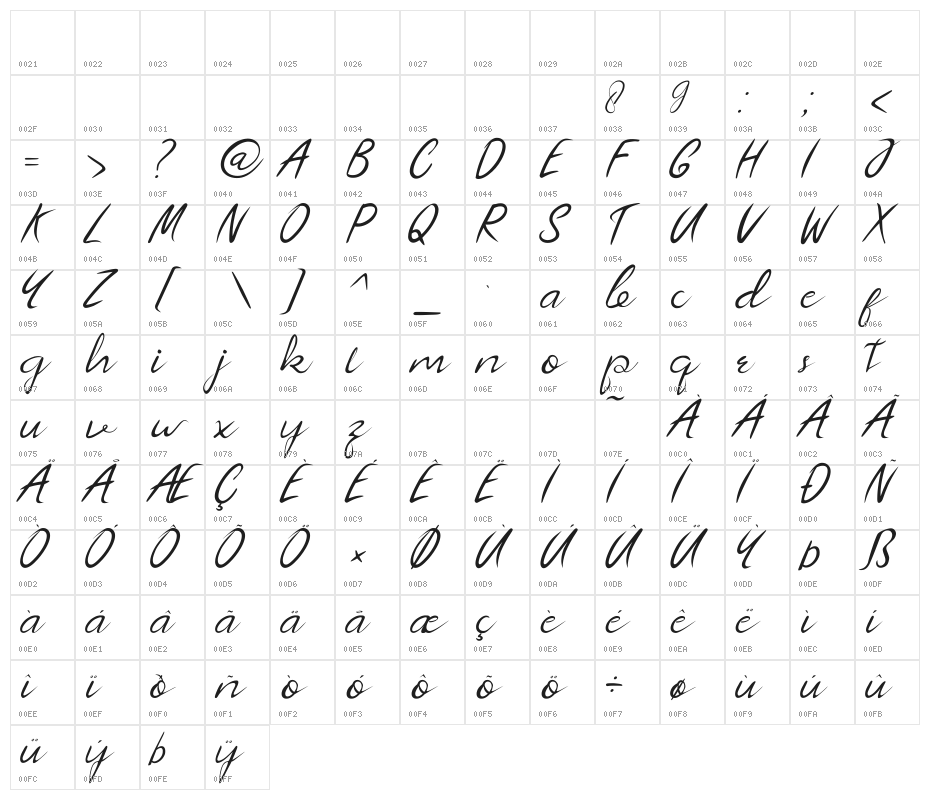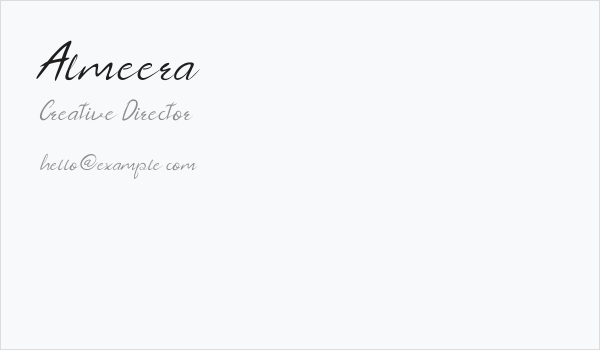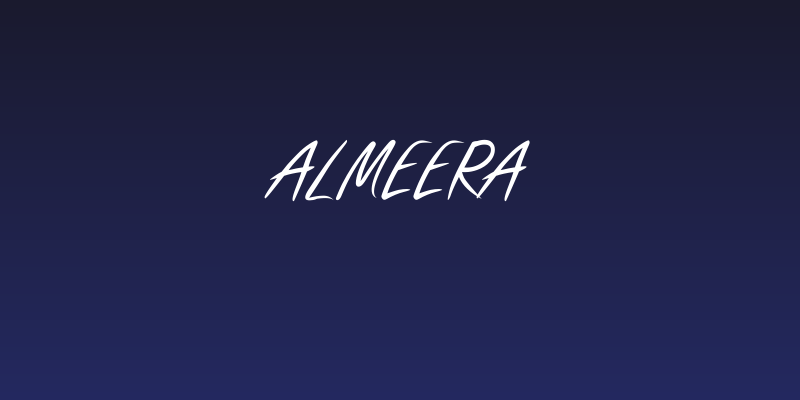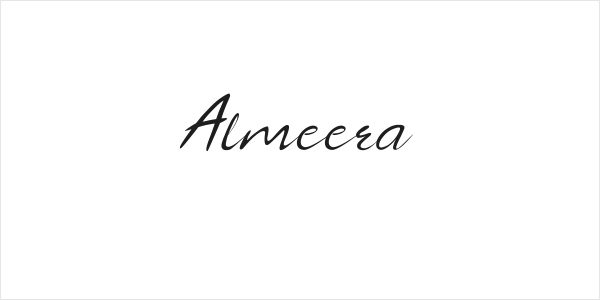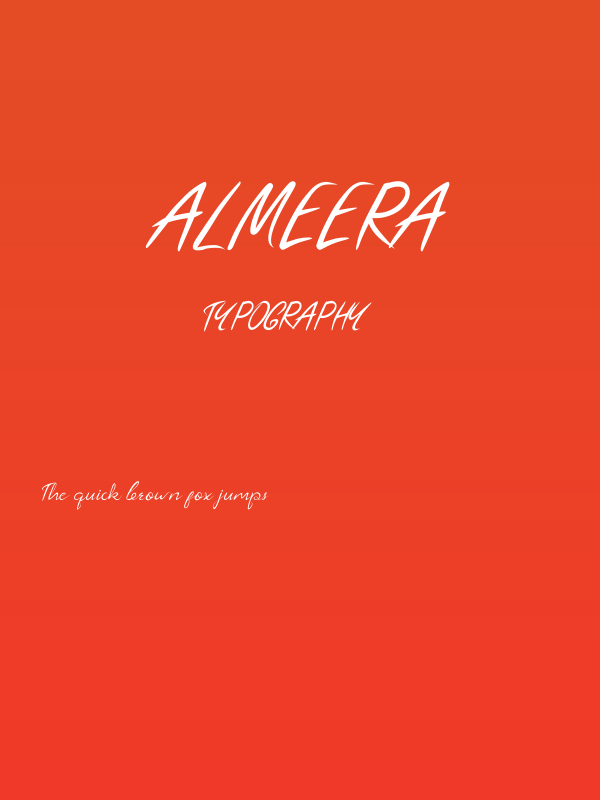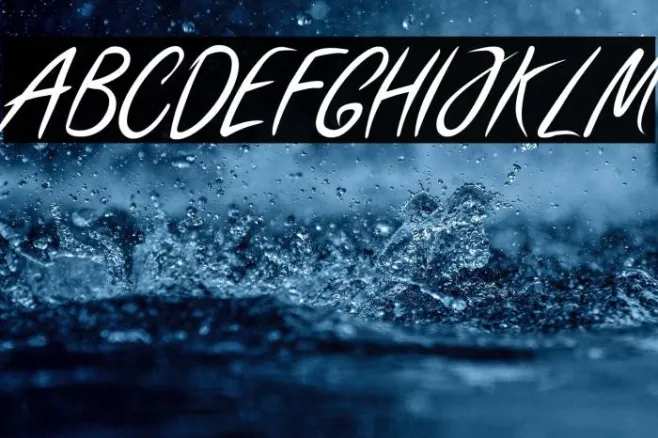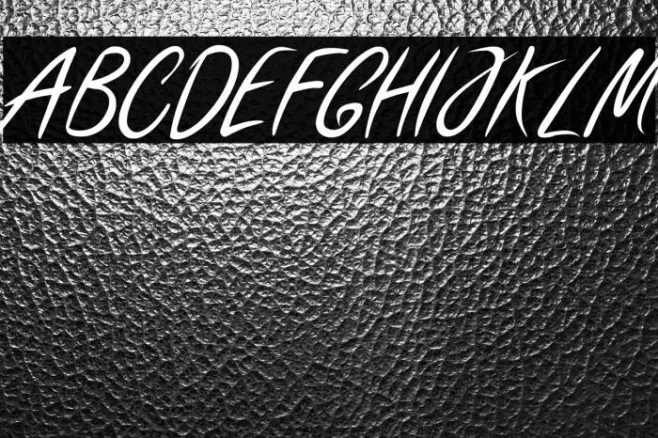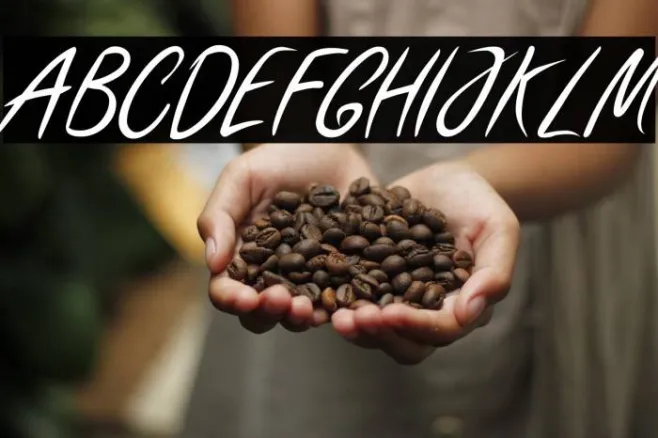
Almeera Font
Almeera Description
This font exudes a dynamic and elegant style, characterized by its flowing script and cursive elements. The letters are connected with smooth, sweeping strokes that give it a sense of motion and fluidity. The uppercase letters are bold and slightly slanted, while the lowercase letters maintain a consistent flow, enhancing readability. The numbers are designed to match the overall cursive theme, with distinctive loops and curves. This font is perfect for projects that require a touch of sophistication and artistic flair.
| Overall Style | Elegant, Artistic |
| Proposed Projects | Ideal for wedding invitations, elegant branding, personal signatures, and artistic posters. |